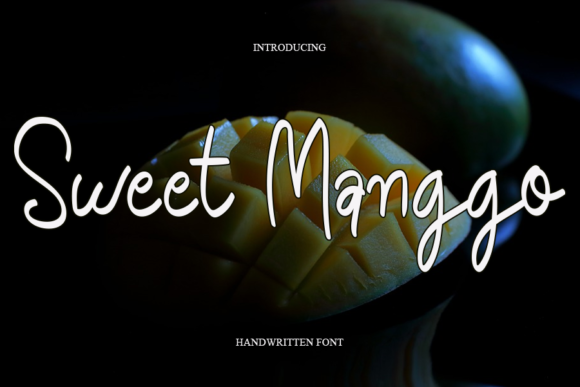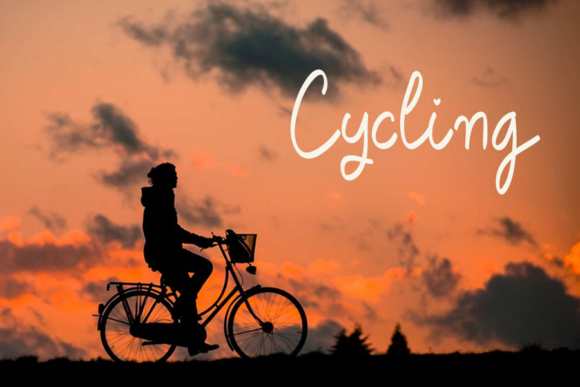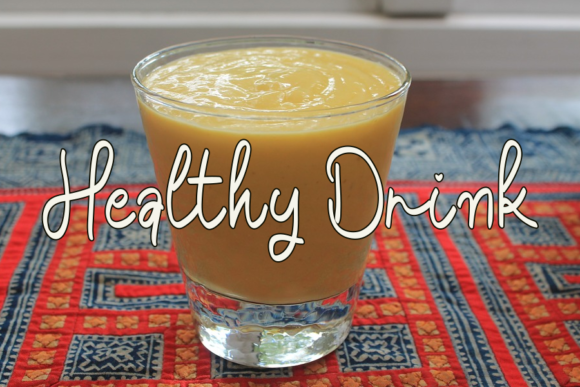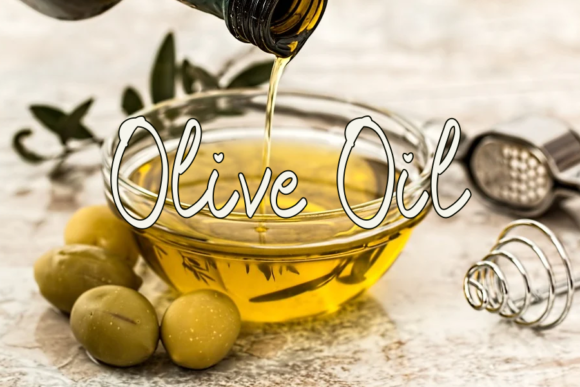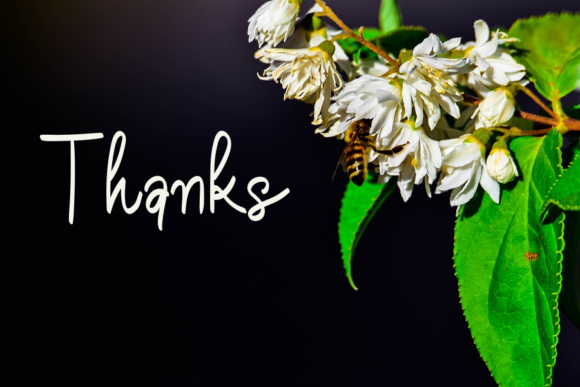
Sweet Mango Font
About Sweet Mango Font
Sweet Mango is a delicate and elegant handwritten font that adds a touch of sophistication and charm to any design. With its distinct and well-balanced letters, this font stands out as a true masterpiece.
The versatility of Sweet Mango allows it to be used in a variety of design projects. Whether you’re creating wedding invitations, logos, branding materials, or social media graphics, this font will bring a touch of elegance and refinement to your work.
The beautiful and graceful strokes of Sweet Mango create a sense of flow and harmony, making it a perfect choice for projects that require a touch of sophistication and class. The carefully crafted letters give the font a unique and distinctive look, making your designs stand out from the crowd.
Sweet Mango’s versatility extends to various styles and themes. Whether you’re going for a romantic and whimsical look or a more modern and minimalist approach, this font can adapt to suit your design needs.
Fall in love with the incredible style of Sweet Mango and let it inspire you to create stunning and captivating designs. Its timeless elegance and versatility make it a valuable asset for any designer.
With Sweet Mango, you can create truly spectacular designs that leave a lasting impression on your audience. So, embrace the beauty of this font and let it elevate your design projects to new heights.